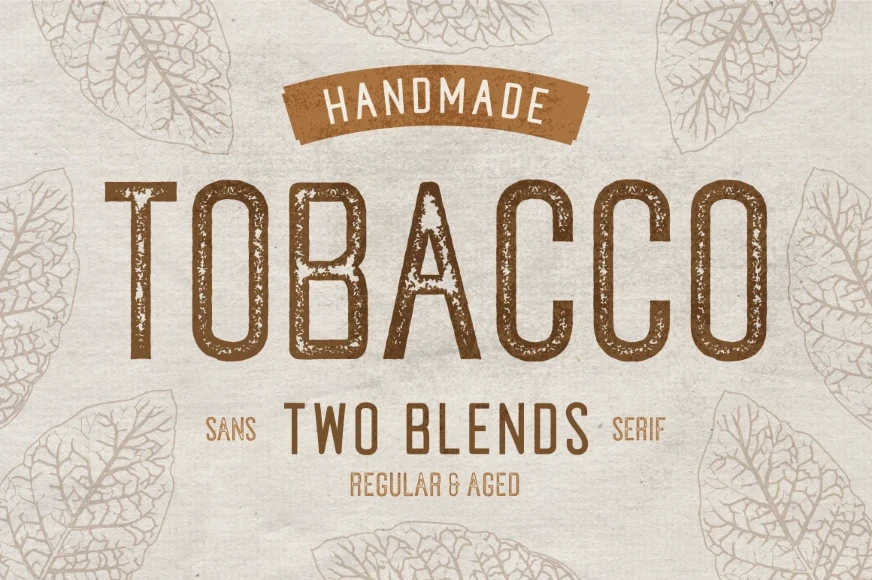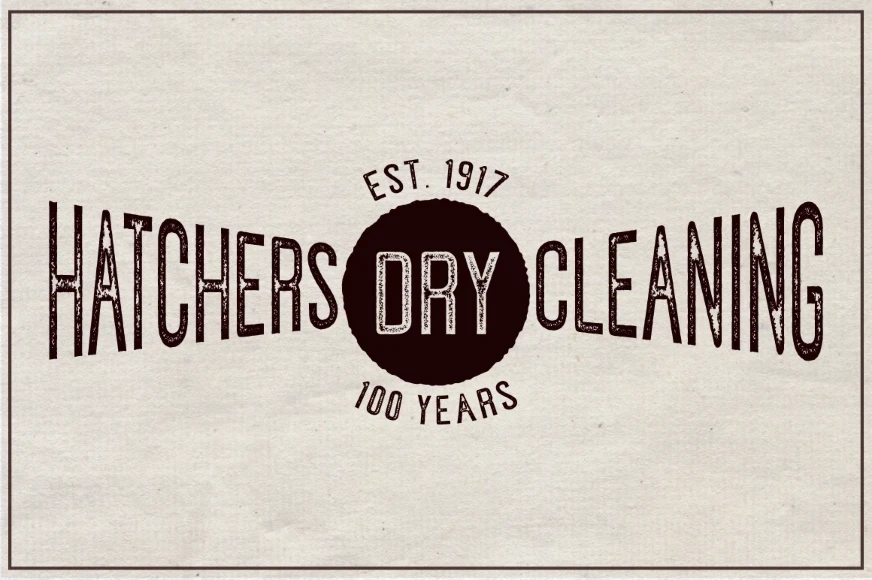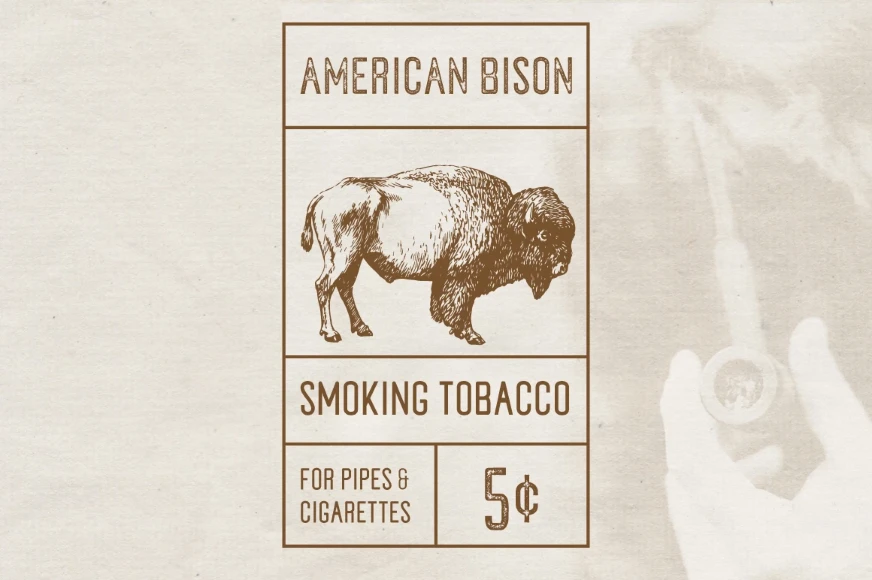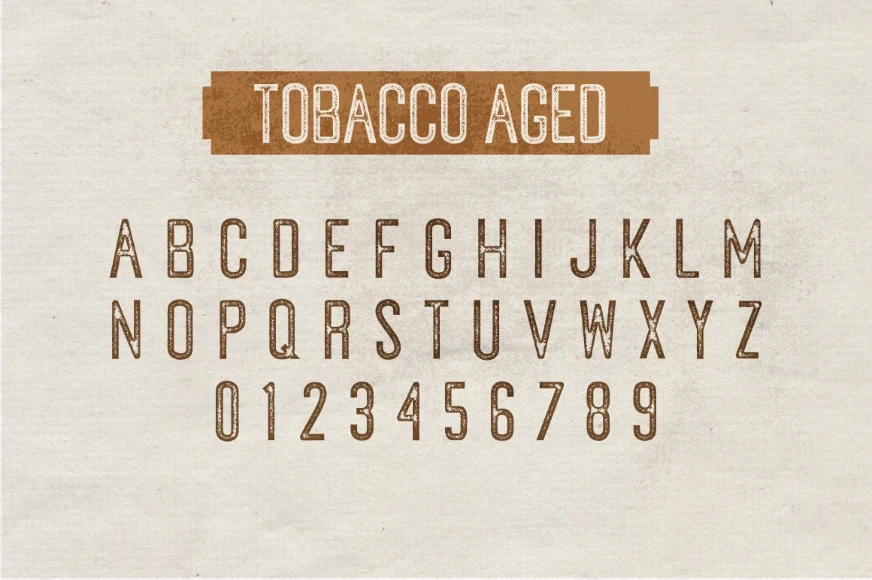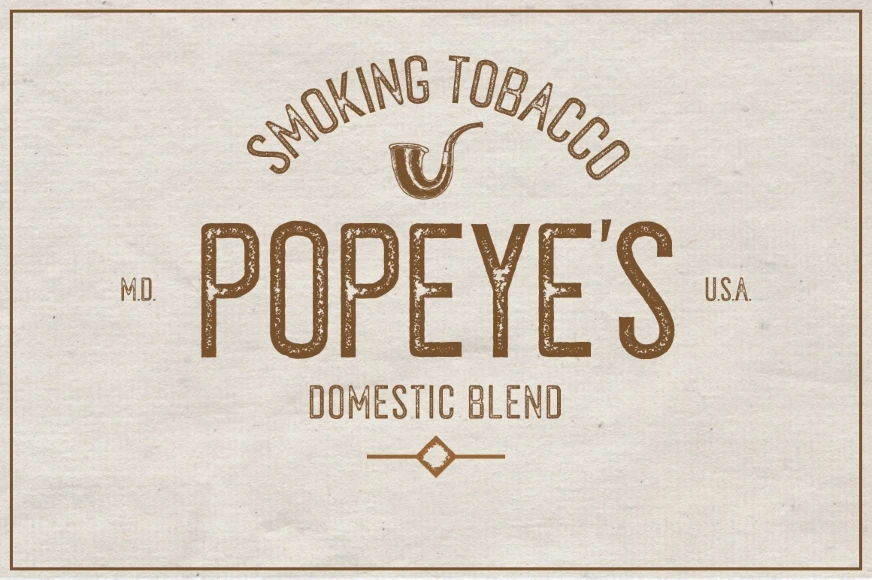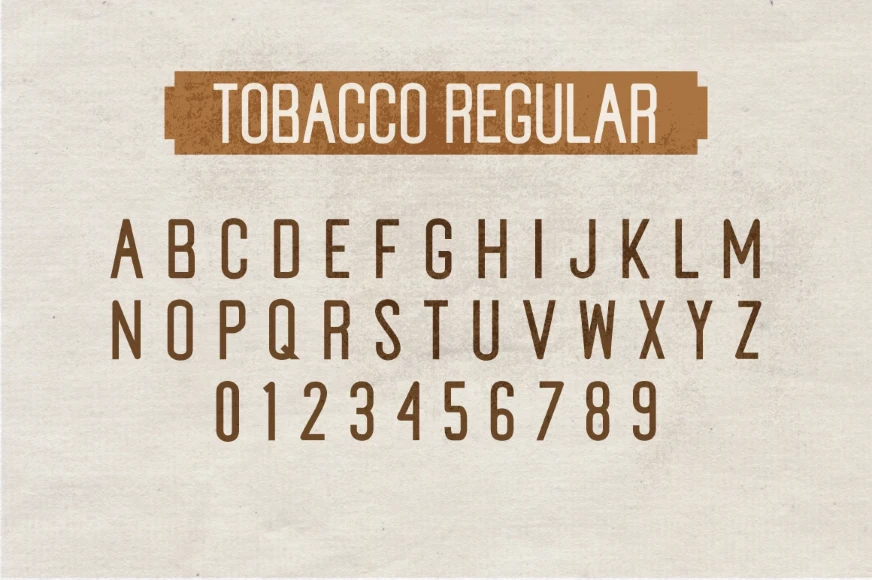
Tobacco
From Josh Ownby
Tobacco is a handmade condensed sans serif. Designed in two styles: one is distressed and the other is clean. Use them separately or layer them to add simple versatility or a rough and gritty texture to all kinds of display typography. Use this hand-drawn font family to create a unique, vintage aesthetic for fashion labels, brand assets, book covers, movie posters, festival graphics, and nearly any project that requires a stovepipe sans with character.
Designed by Josh Ownby